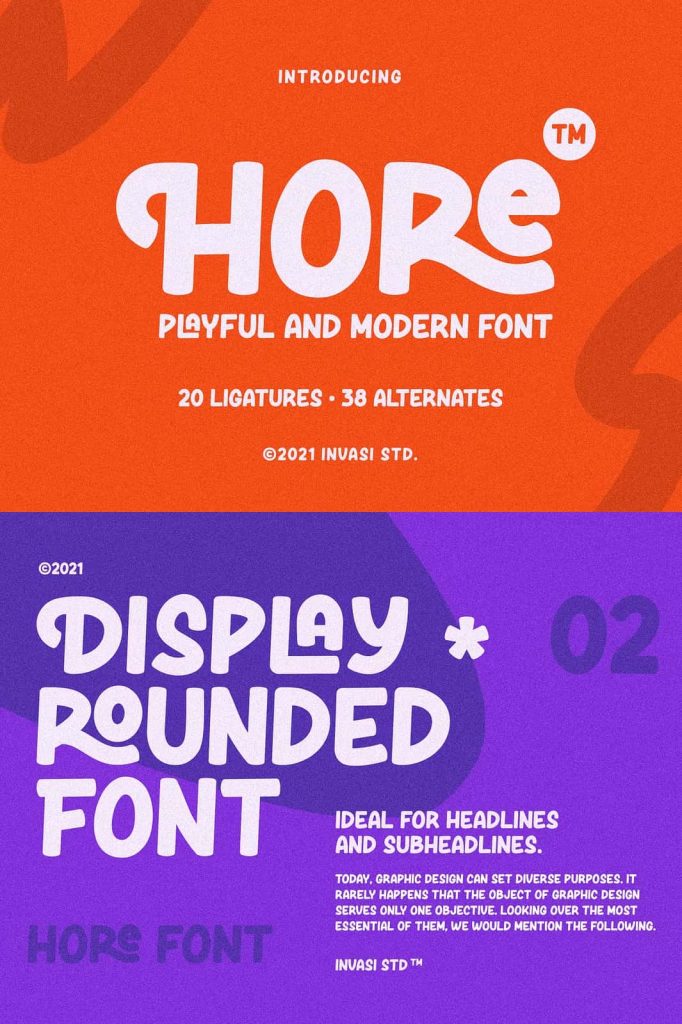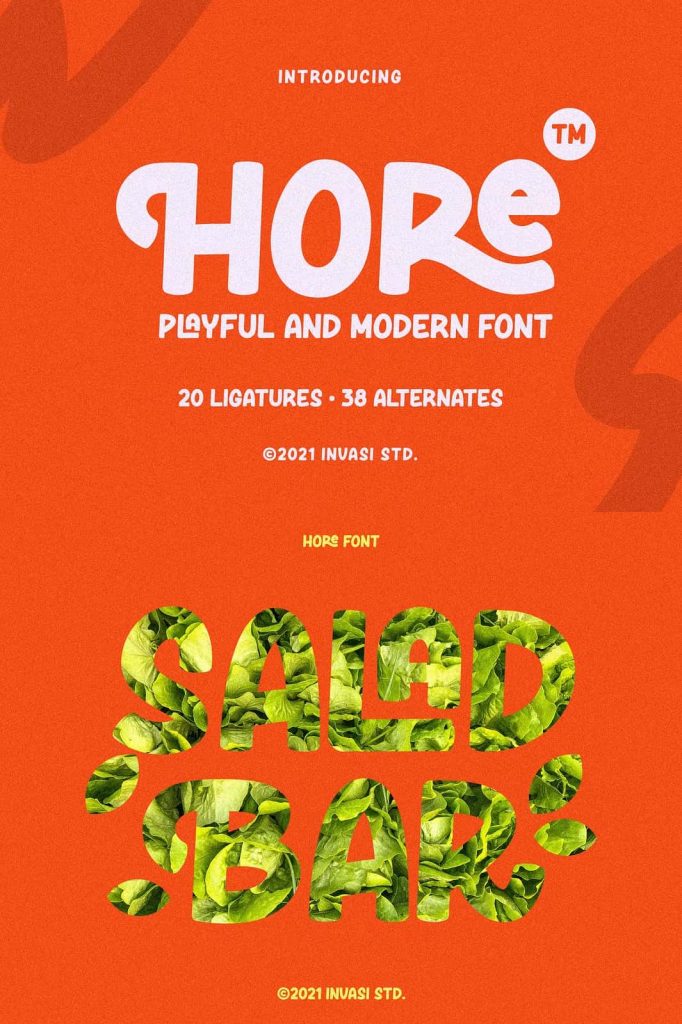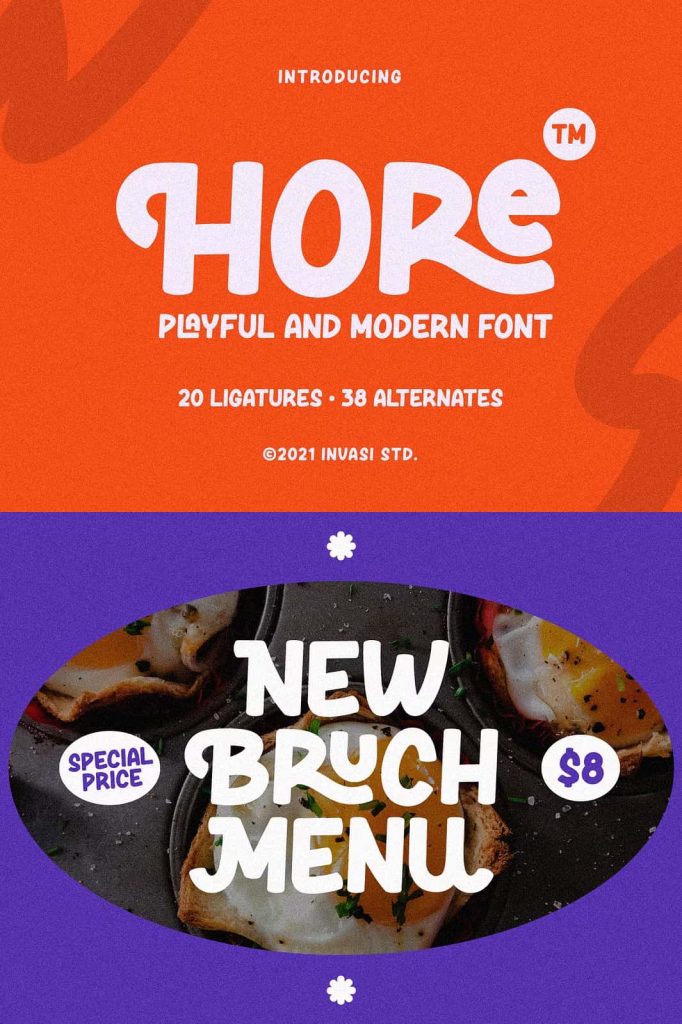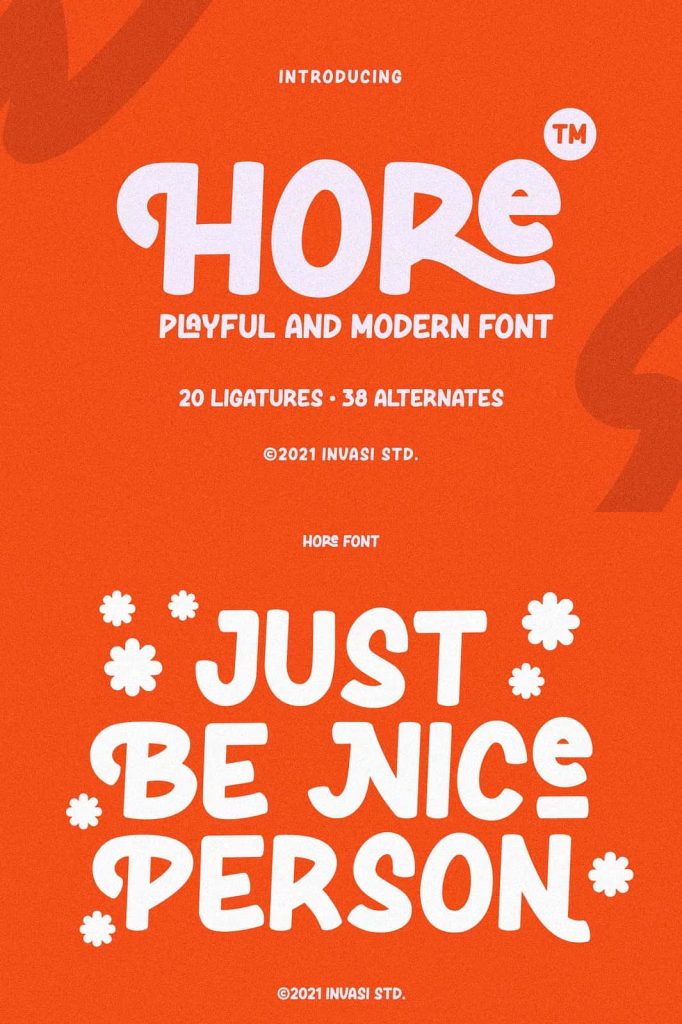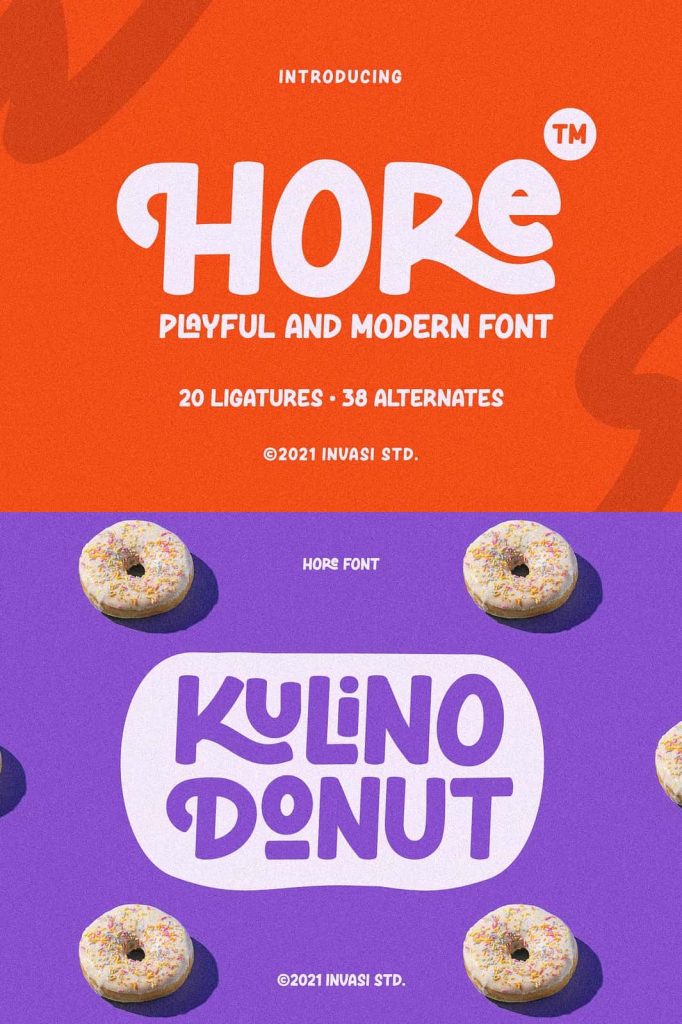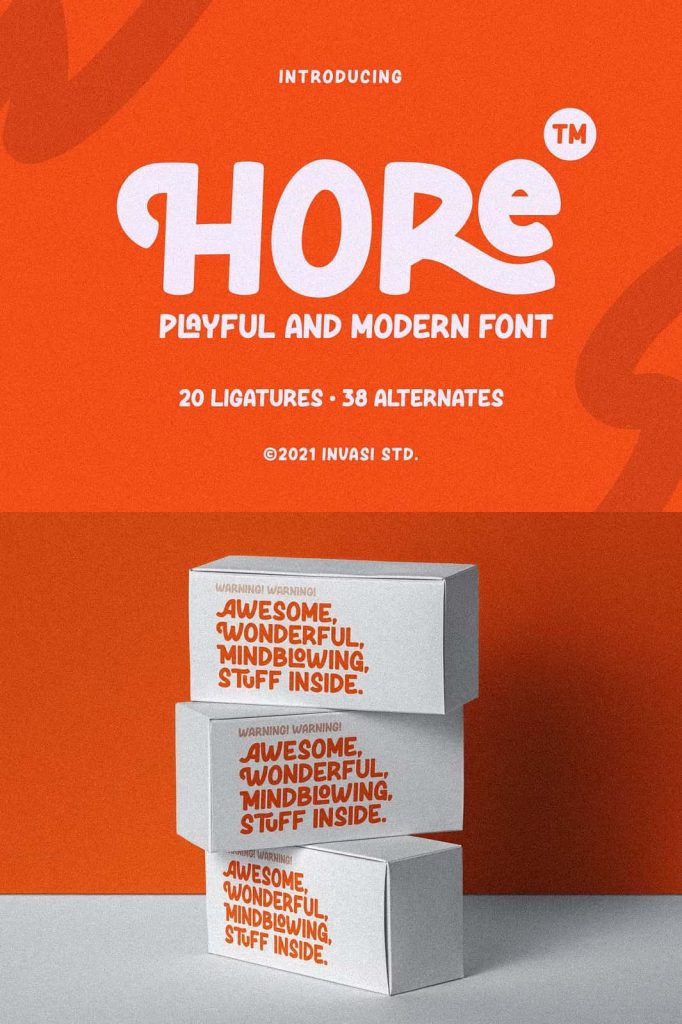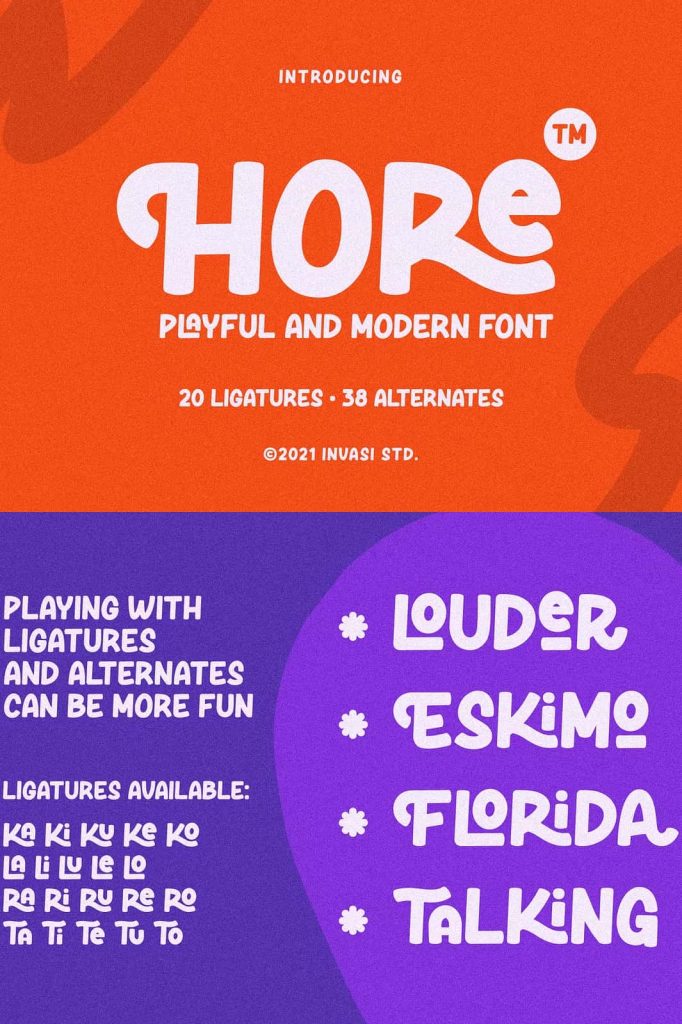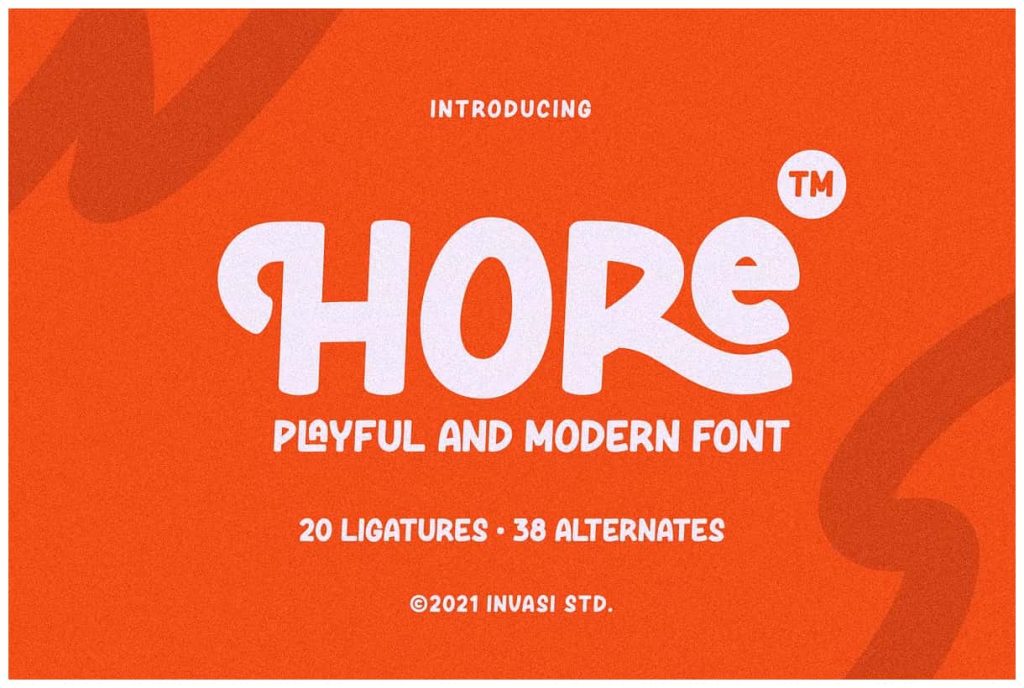
Hore – Playful FontleastedMarch 10, 2025Fonts Introducing Hore Font, our new and fun font collection. It combines modern, playful, and formal together. Download